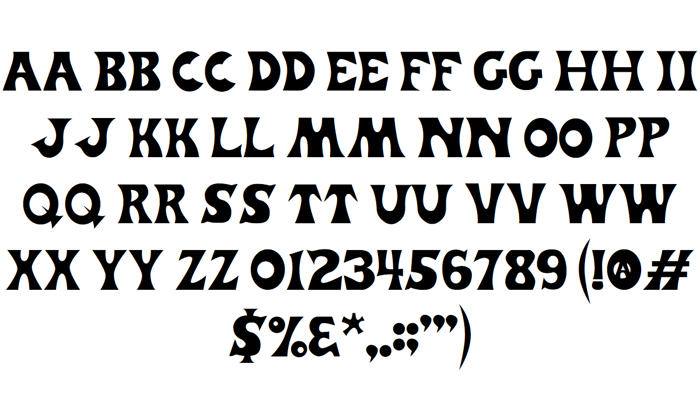
Trader Joe's Font
Trader Joe's is a font that's based on the logo for Trader Joe's. It is the font I made for Trader Joe's.
Fontopia youre brilliant! I used this for my resume applying to a job at Trader Joes - very festive and appropiate!
It's traditional BASQUE FONT. In Bilbao in 1998 I saw it frequently over old buildings like restaurants and pubs, perhaps 100 or 200 years old. The dark humor of the sample text (NOT A BOMB, I PROMISE( is a reference to the Atocha Station bombing in 2004. I have friends whose kids passed through that railway station just minutes before the bomb went off -- supposedly planted by Basque Separatist terrorists.